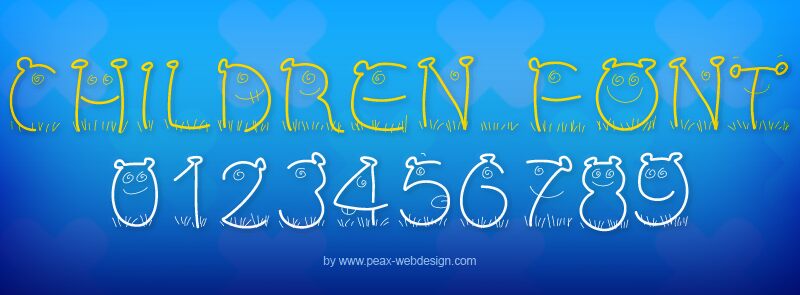
PW Children by Peax Webdesign is a free illustrated decorative display font populated by friendly little monsters. Tall, uneven letters bend into bodies, with eyes, smiles, horns, and tufts of fur worked directly into the shapes. The thin outlines keep the drawings light and lively.
A children's book publisher or toy brand could use it for cover lettering and packaging with a comic, homemade spirit. It also belongs in classroom posters and party materials, where the amusing faces make words part of the entertainment. Because each letter behaves like a small creature, the type can join character illustrations as a cast rather than sit apart as ordinary text.